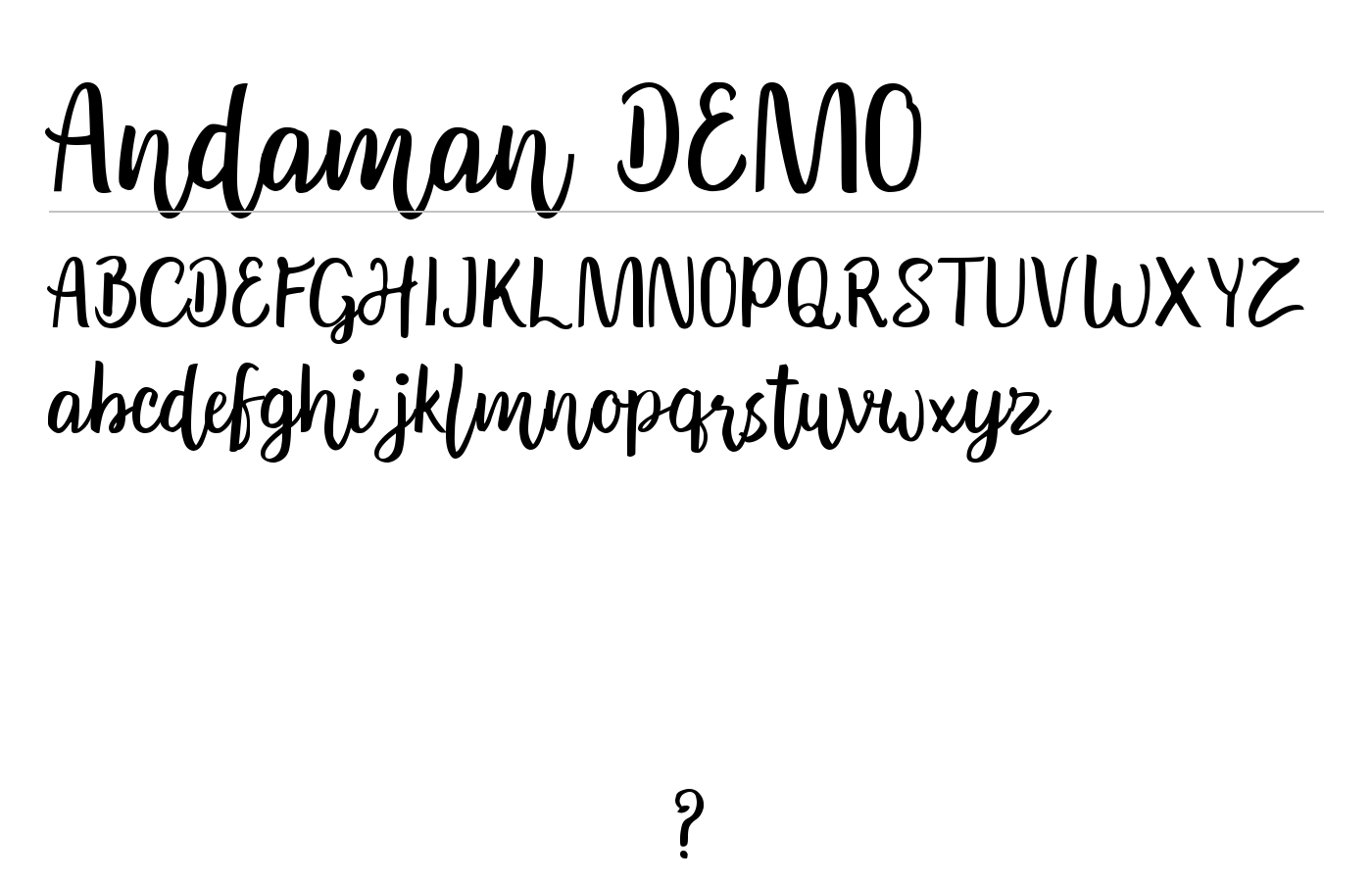
Andaman DEMO is a playful and casual script font with a handwritten feel, featuring a medium weight and a lively, slightly uneven flow that adds charm and personality. Its tall x-height and quirky letterforms make it perfect for creative projects, branding, and informal headlines where a friendly and approachable tone is desired. This font works well for invitations, social media graphics, and packaging that aim to convey warmth and uniqueness.
Andaman DEMO Font
About Andaman DEMO Font
| Designer | Trim Studio |